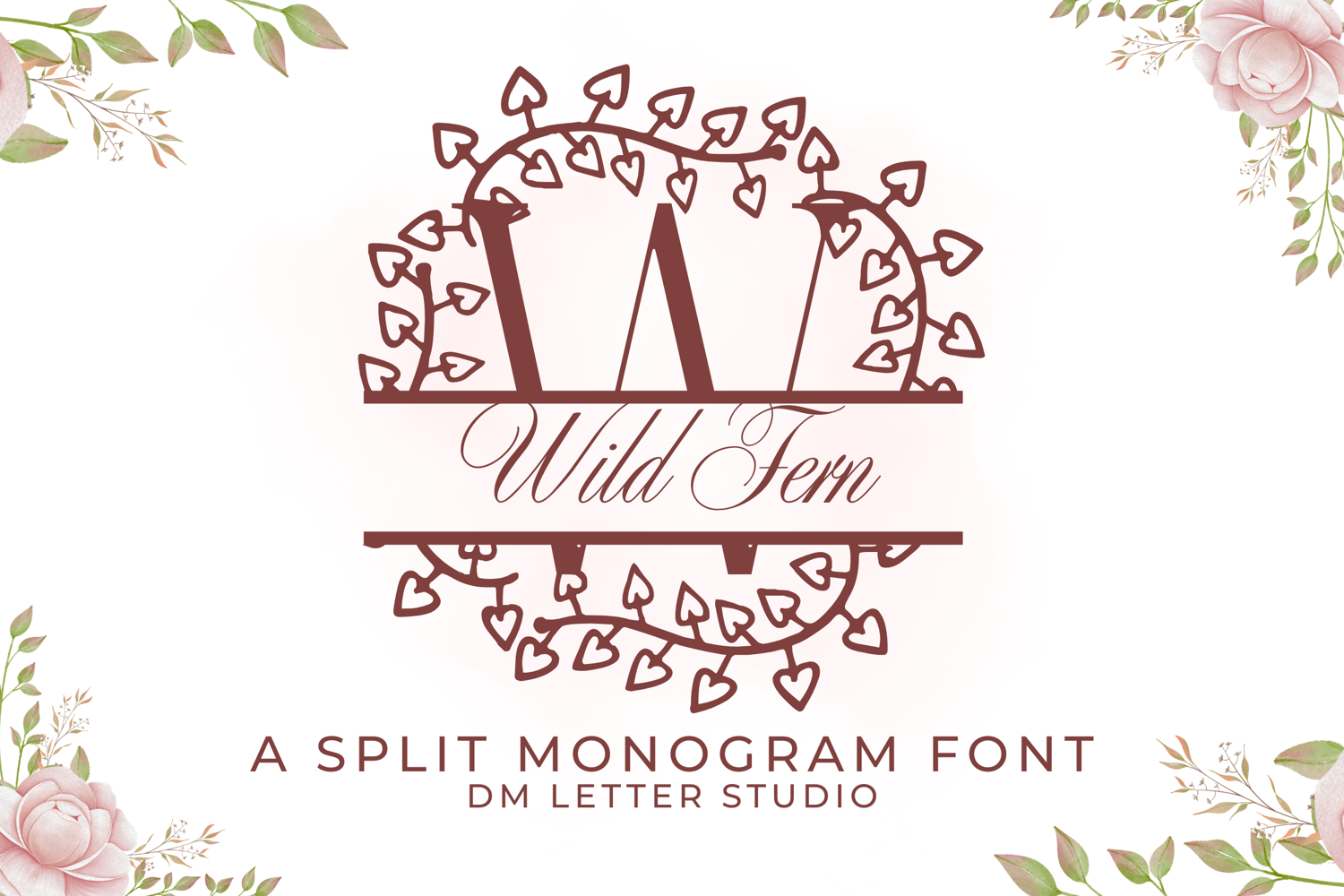
Wild Fern Split Monogram - Rustic Botanical Serif Font
Wild Fern Split Monogram
Wild Fern Split Monogram – Rustic Botanical Serif Font with Split Letters and Fern Accents
Wild Fern Split Monogram is an elegant serif monogram font featuring graceful fern illustrations and a clean horizontal split, allowing for customizable text like names or initials. Inspired by forest foliage and rustic charm, this font adds a handcrafted botanical flair to weddings, branding, signage, and personalized gifts.
• Split-Letter Format: Easily insert custom names or words within each split monogram letter.
• Fern Botanical Details: Detailed fern elements bring a natural and organic aesthetic.
• Classic Serif Elegance: A balanced serif base adds refinement and structure.
• Ideal For: Wedding signage, rustic branding, personalized gifts, Cricut crafts, nature-inspired logos, and boho stationery.